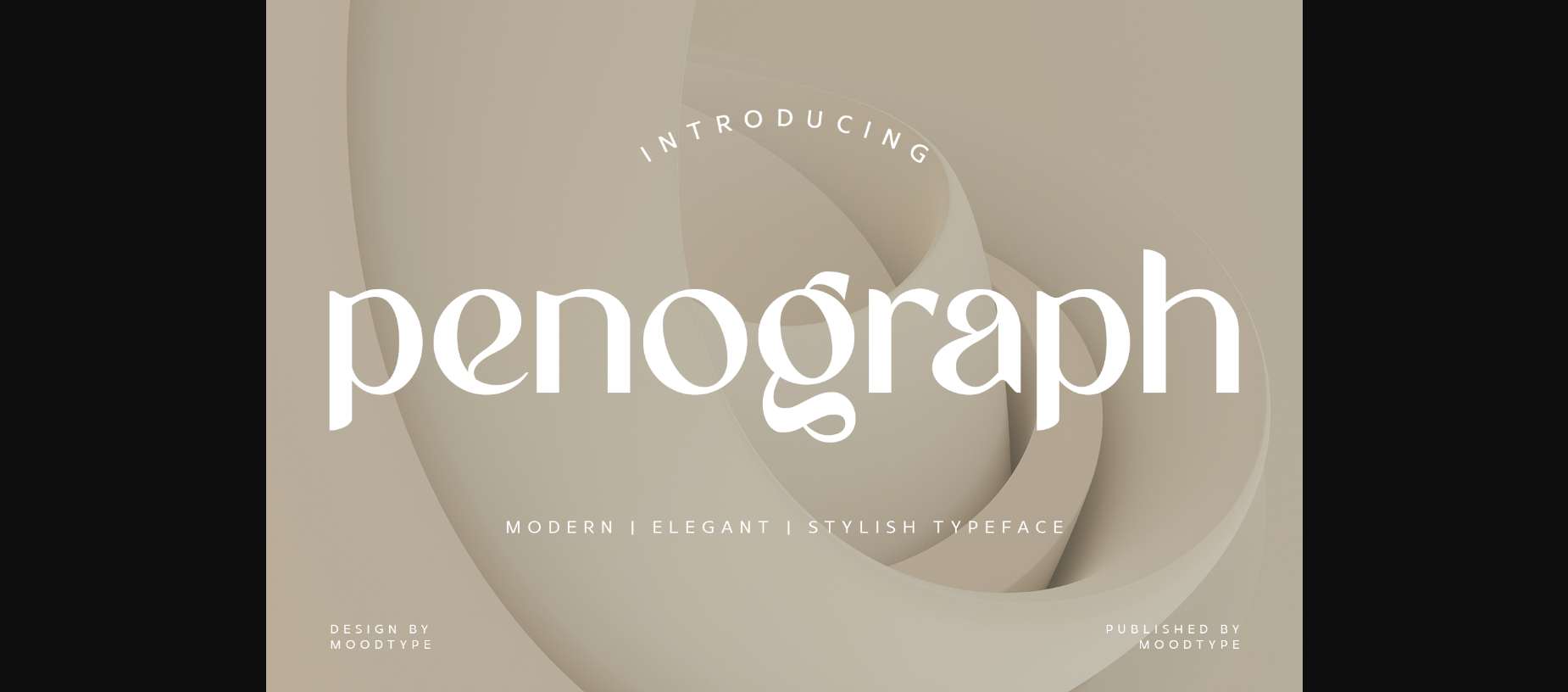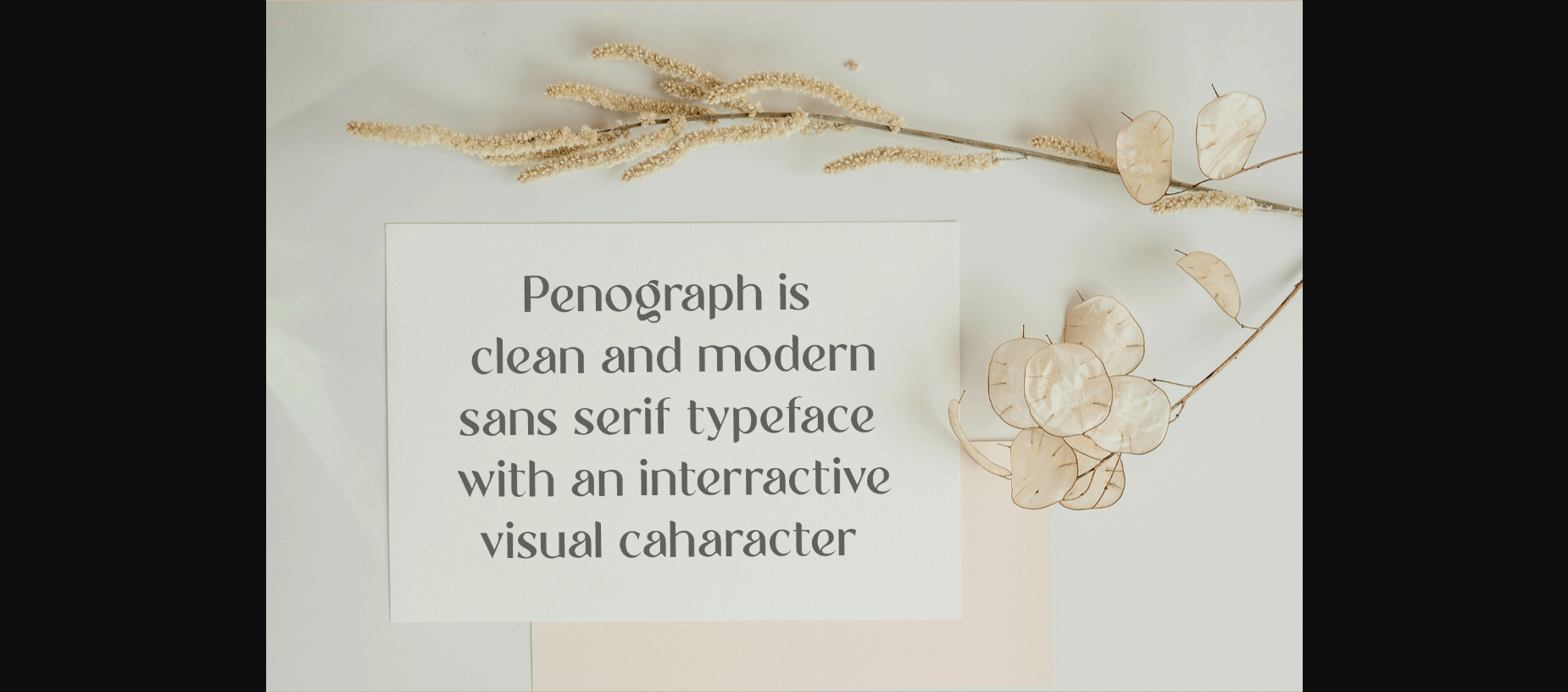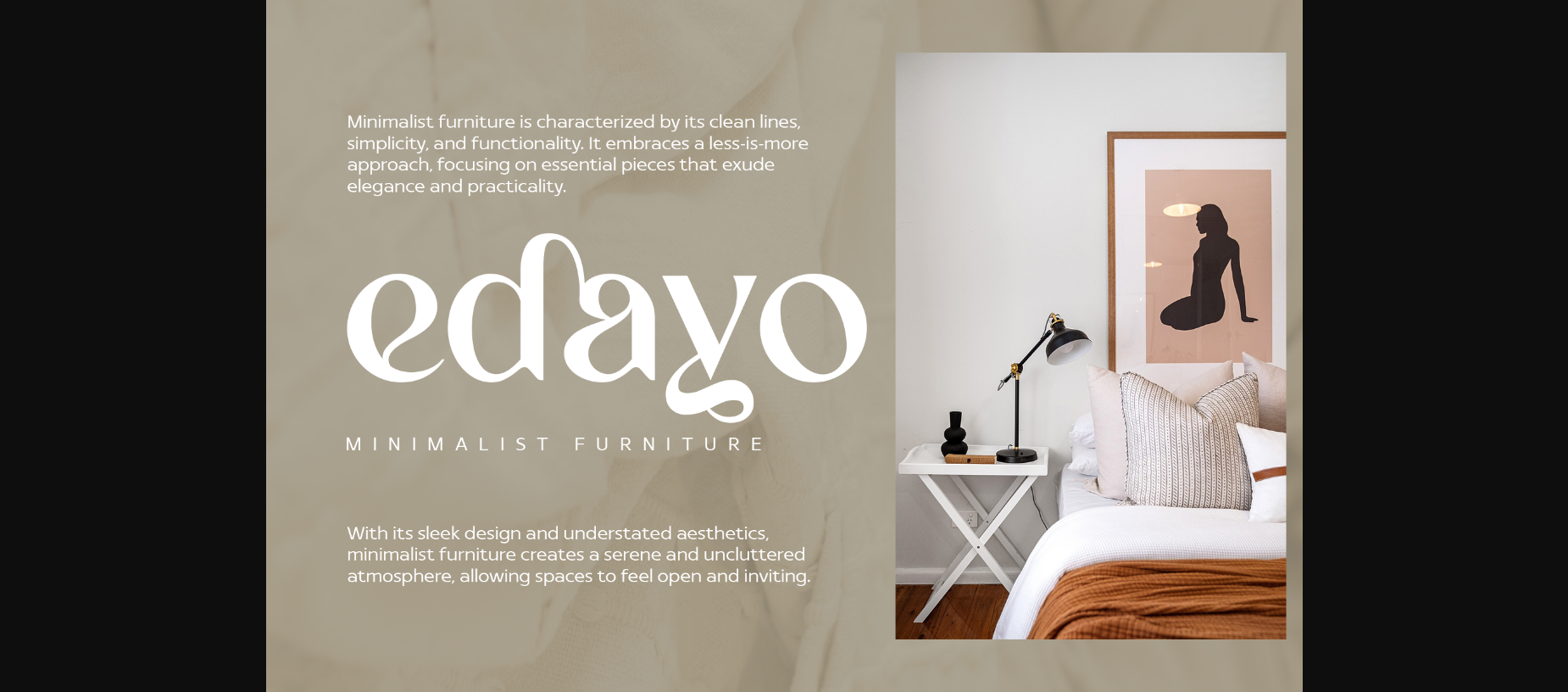
About Penograph Font
Penograph is a balanced and stylish sans-serif font that exudes contemporary sophistication. With clean lines and subtle curves, it offers clarity and elegance to any design project. Perfect for branding, editorial content, and modern layouts, Penograph strikes a harmonious balance between professionalism and creativity, ensuring visual appeal and readability.